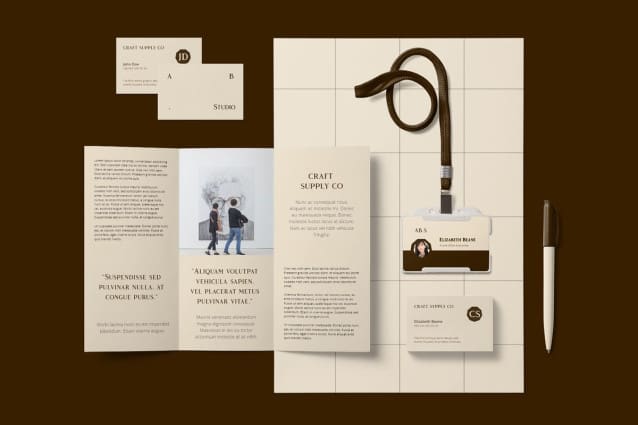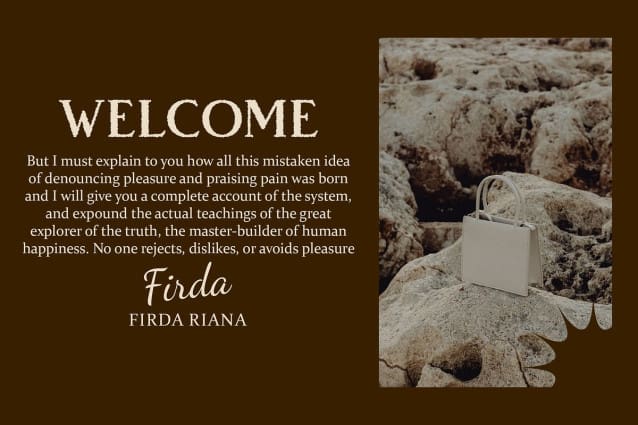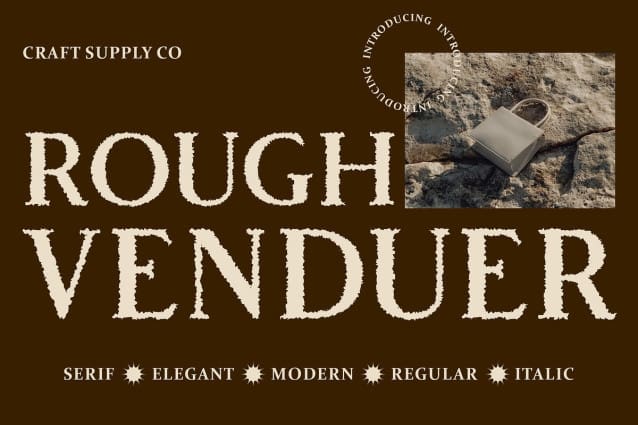
Vendeur Rough Font
Vendeur Rough Font: Timeless Elegance with a Raw Edge. Classic Serif Design Vendeur Rough boasts a classic serif design, characterized by refined letterforms and elegant proportions. Its timeless appeal adds sophistication to any display project.
Rough Texture Effect The font is enhanced with a rough texture effect, adding a raw and authentic quality to its appearance. This roughness imbues the font with character and charm, making it stand out on the page.
Perfect for Display Purposes With its classic serif design and rough texture effect, This font is perfectly suited for display purposes. It commands attention and creates a memorable visual impact in posters, headlines, and branding materials.
Versatile Application Despite its classic appearance, This font offers versatility in its application. Whether used for traditional print media or digital designs, it adds a touch of sophistication and character to any project.
Timeless Sophistication with a Raw Twist This font combines the timeless elegance of classic serifs with a raw texture effect, resulting in a font that exudes sophistication with a hint of rugged charm. Perfect for display purposes, this versatile font adds character and distinction to any design project.